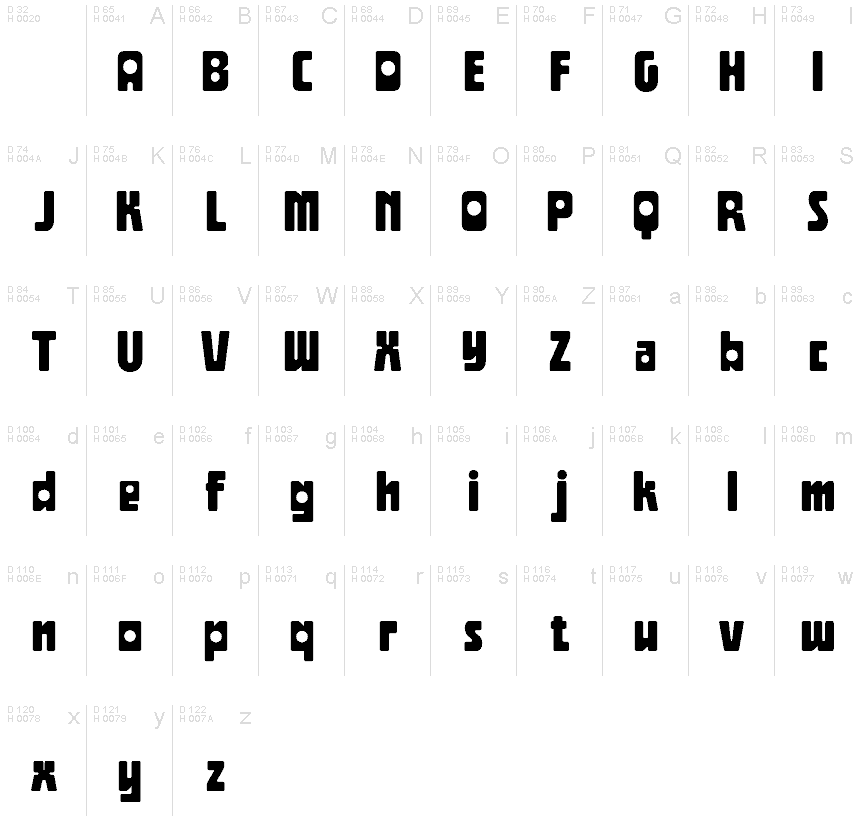
CS Chaker Regular Demo
CS Chaker font by Craft Supply Co. is a bold, condensed display font with a chunky, geometric design. Its characters are characterized by their impactful appearance which builds up a strong presence in headlines and titles. It’s simply a notable retro visual vibe to make your designs rock!
Use CS Chaker font in posters, magazines, packaging designs, product labels/labels typography, and many other types of branding/advertising projects. Creating covers for books or other print materials will be fun with this one as well! This is truly a limitless resource ready for any type of project ahead!